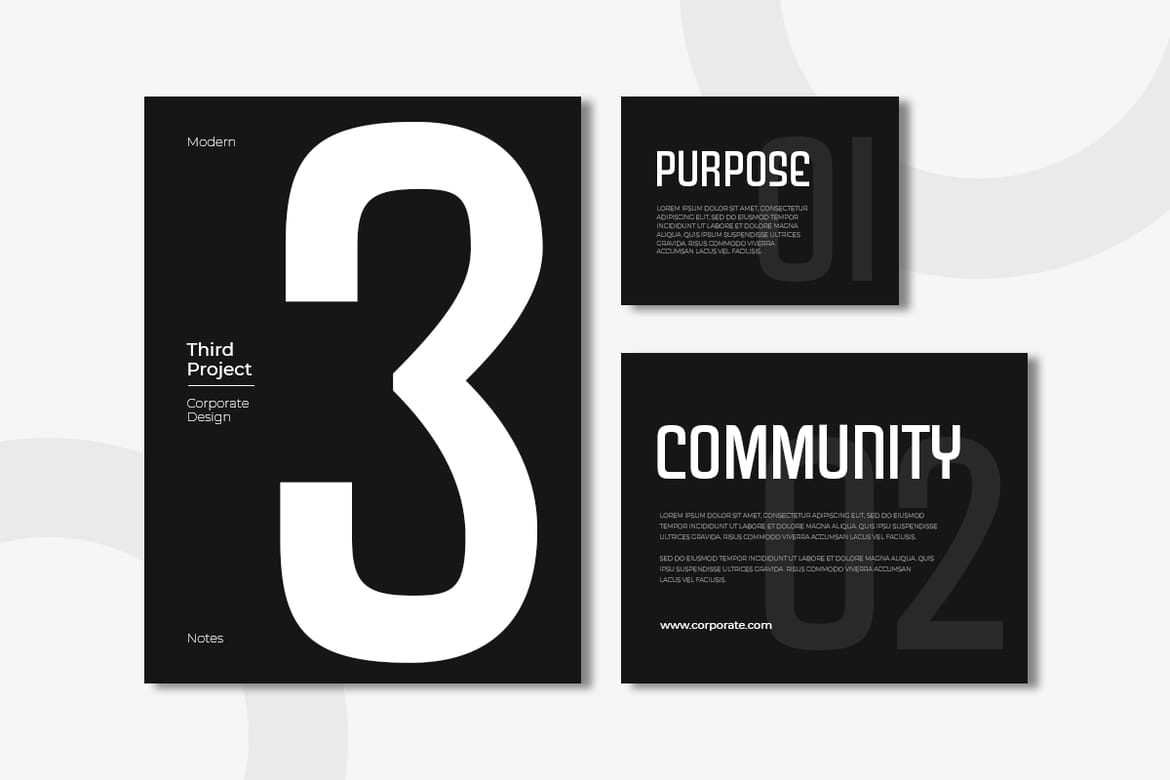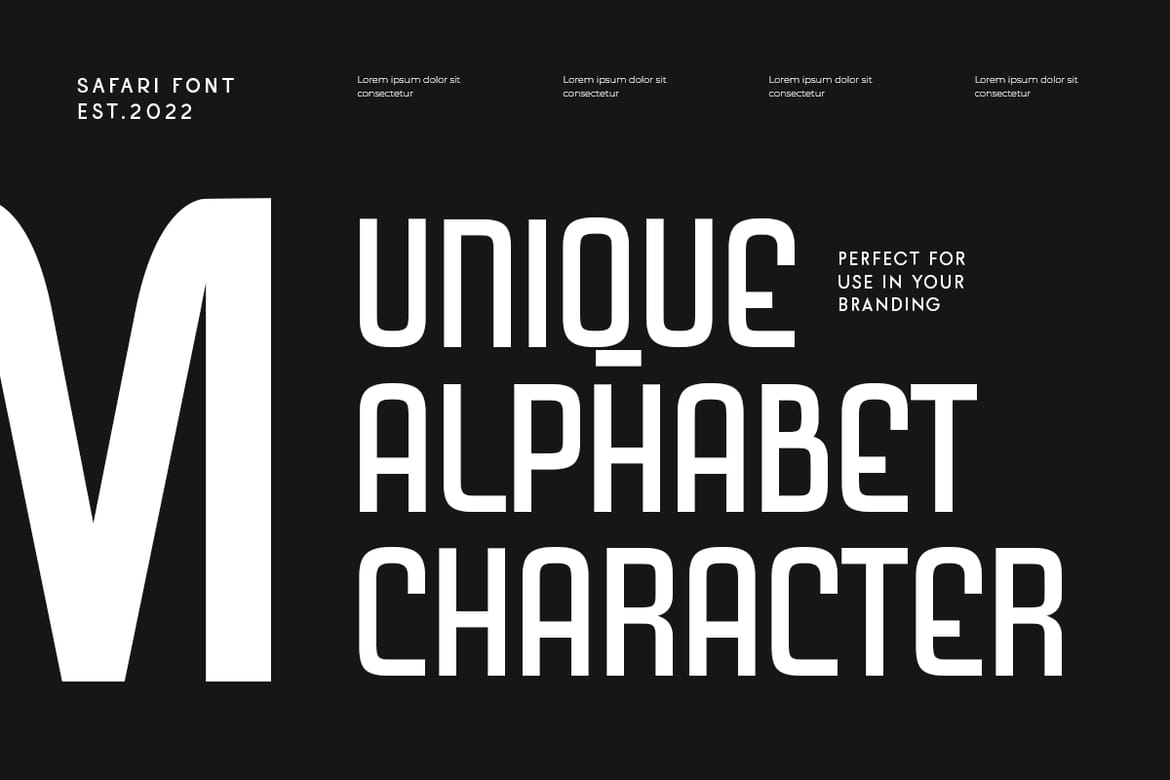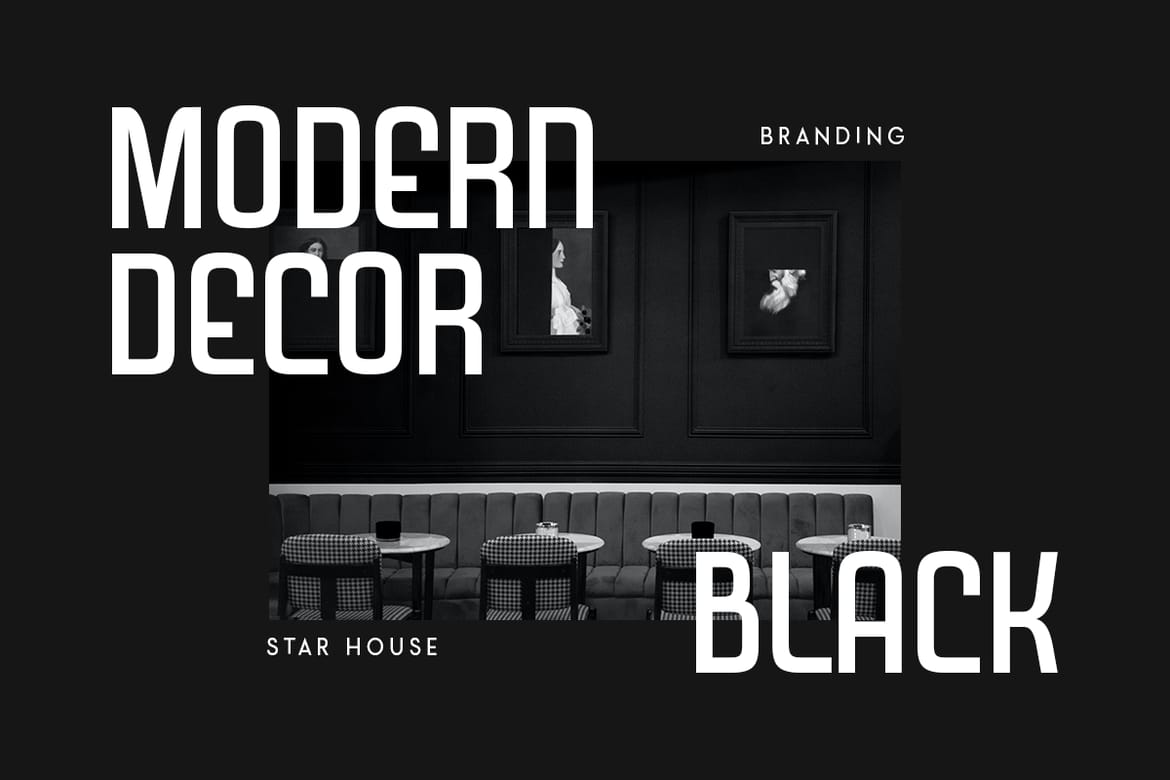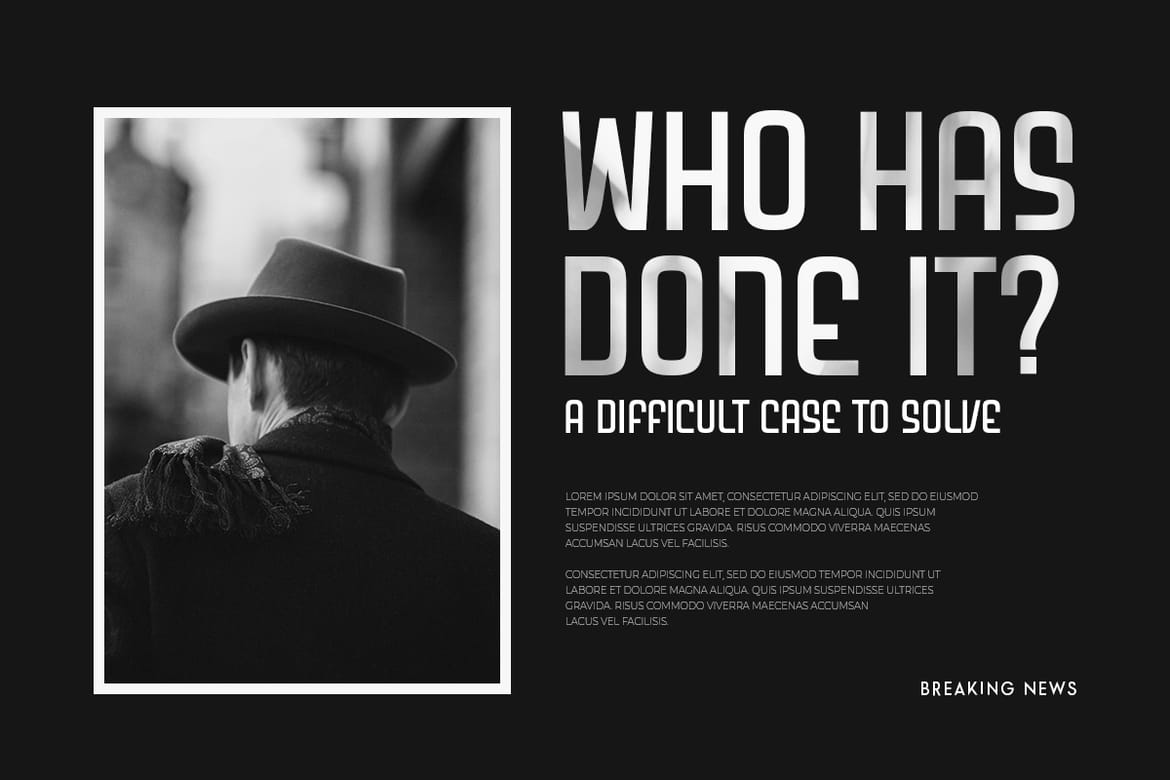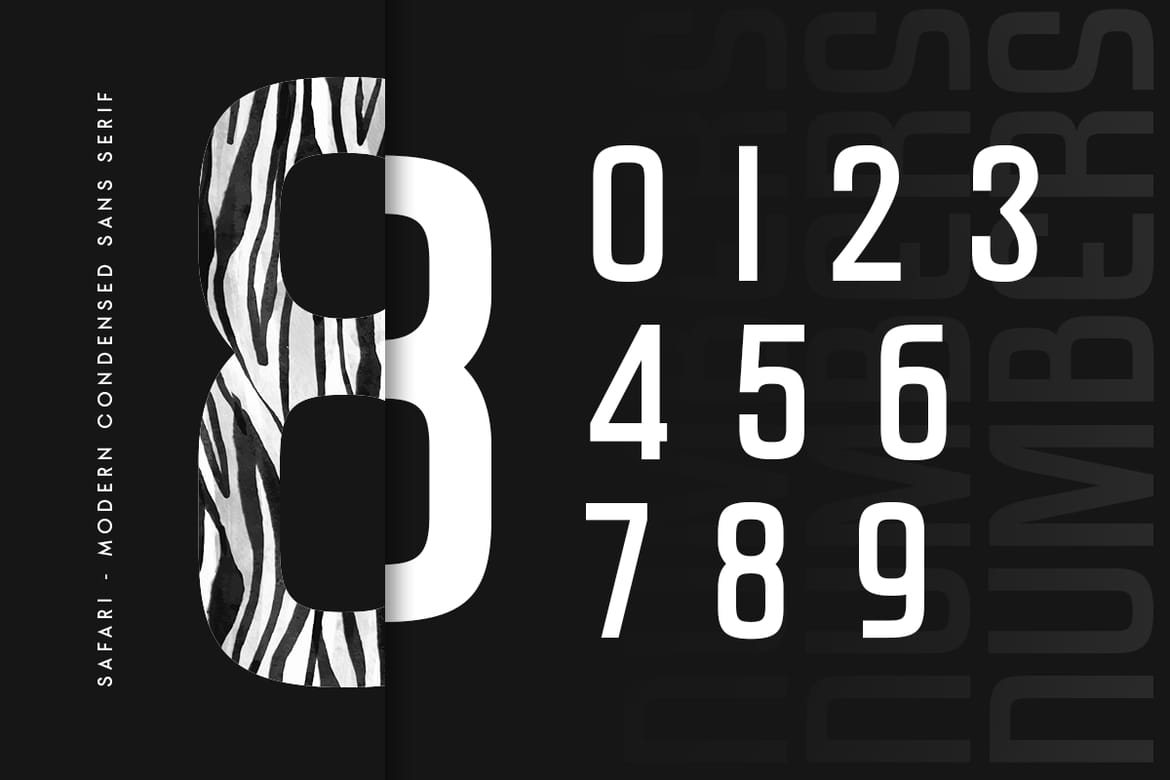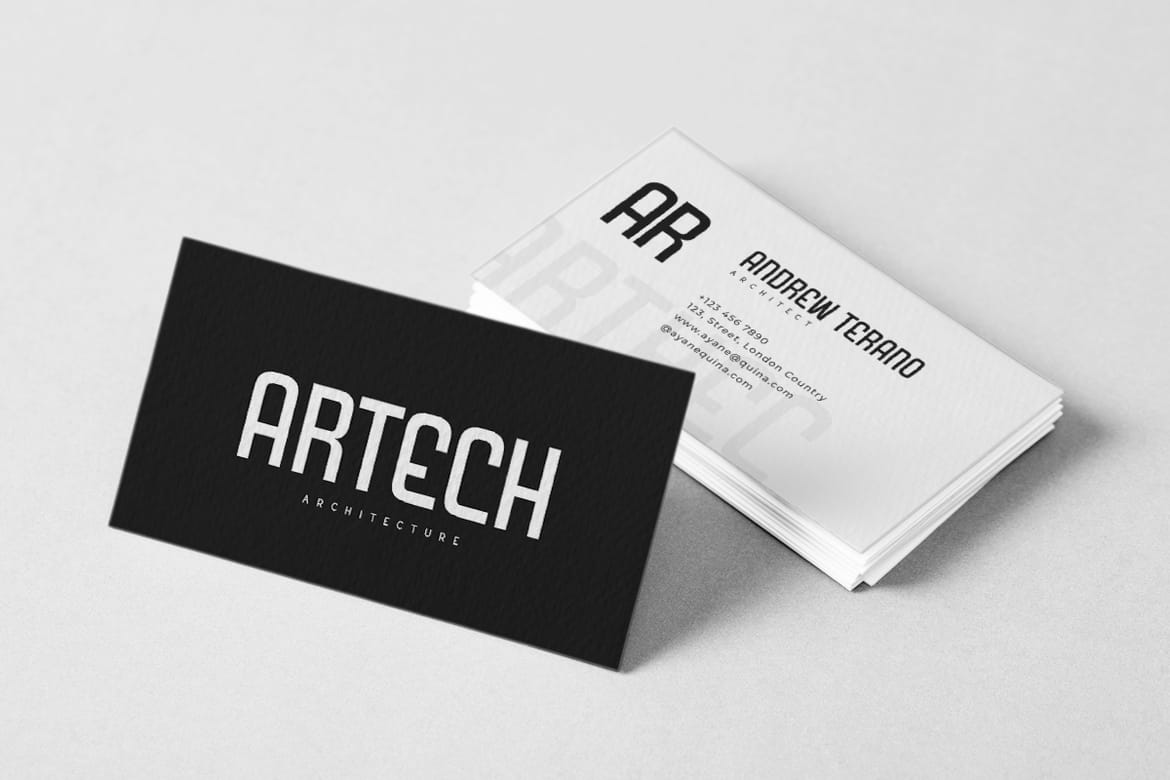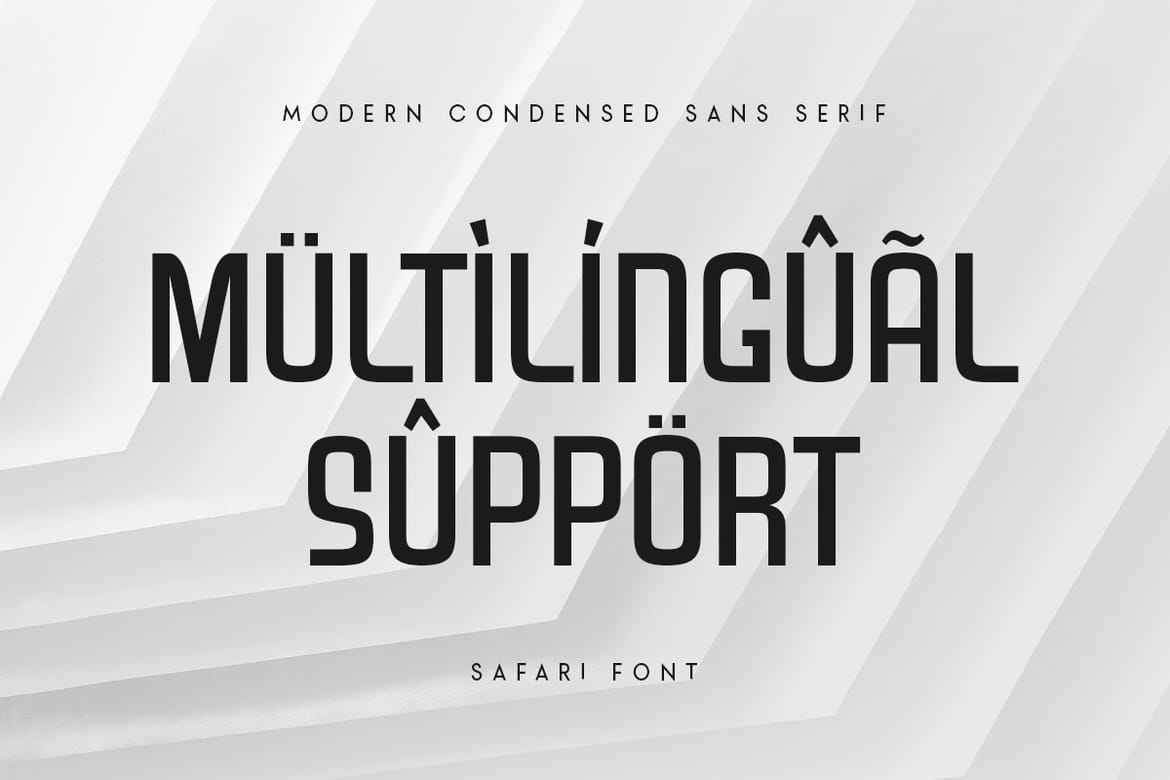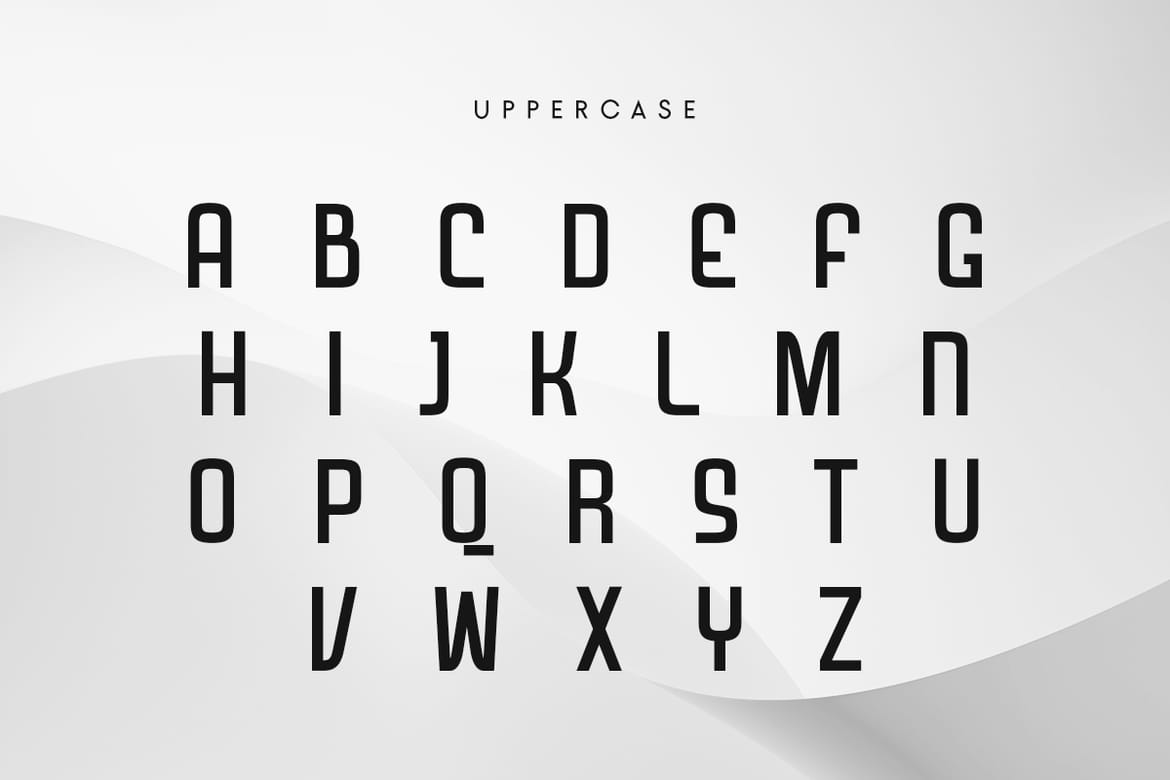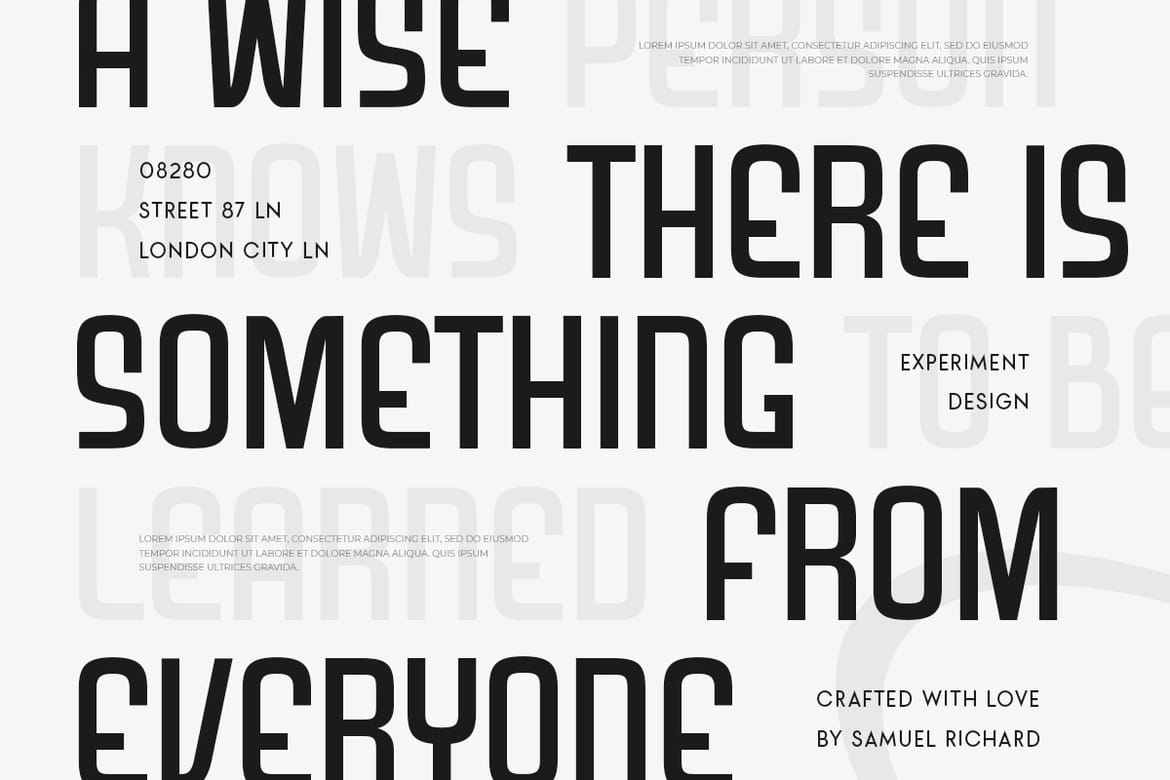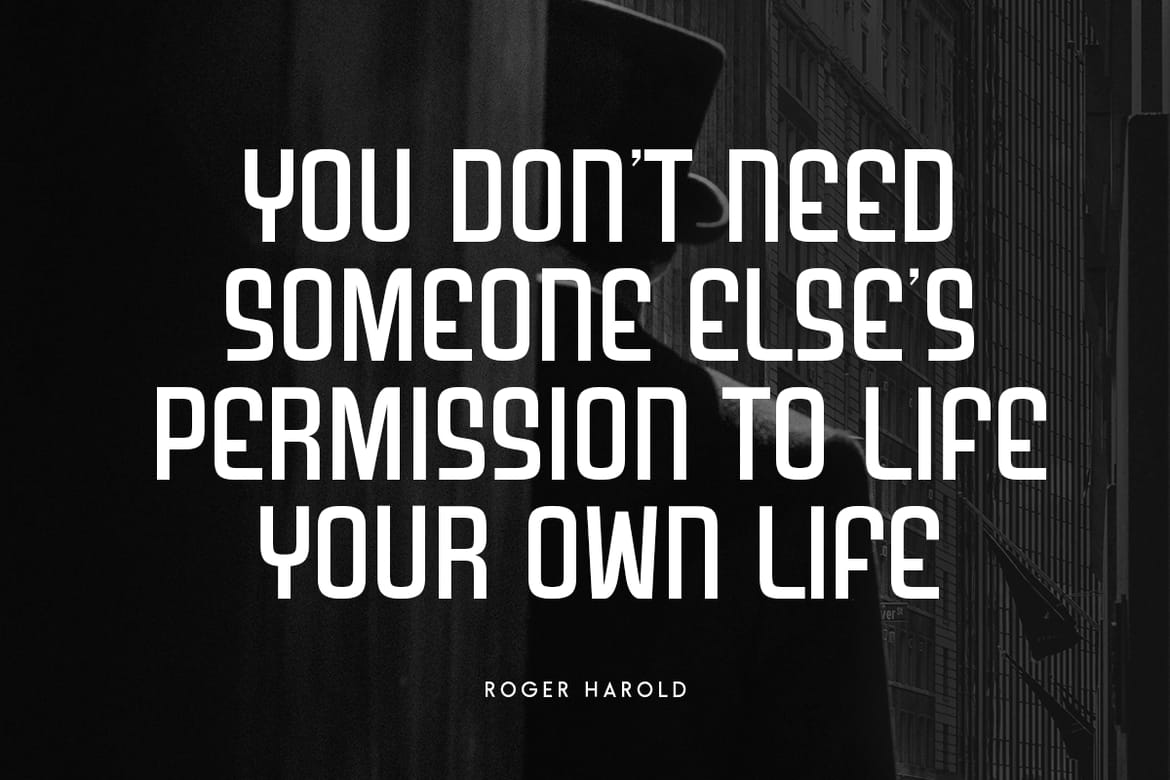
Safari - Modern Condensed Sans Serif
Safari is a Modern Condensed Sans Serif font are prepared special for heading, title, and typography needs. A new San Serif Font that we created special for Headline, Title and more stand out typography needs. It's so perfect to add your style and headline overview. And specially for Headline font, we crafted for unique style and modern feels so enjoy to create any project that will show your main idea out.
• Condensed elegant headline font
• Unique modern style sans serif
• Perfect for titles and headings